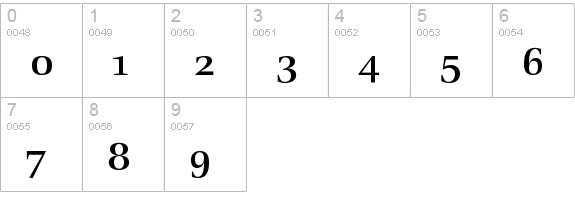
VeljovicEF-MediumOsF is a stunning and versatile font that effortlessly combines classic elegance with modern simplicity. Created by the talented designer Jovica Veljovic, this font is a true embodiment of sophistication and grace. With its medium weight and open spacing, VeljovicEF-MediumOsF is perfect for a wide range of design projects. Whether you're working on a logo, a website, a magazine layout, or any other creative endeavor, this font will add a touch of refinement and professionalism to your work. One of the standout features of VeljovicEF-MediumOsF is its exceptional legibility. The carefully crafted letterforms ensure that every character is easily distinguishable, making it an excellent choice for both large blocks of text and small captions. And the best part? VeljovicEF-MediumOsF is available for free download at FontsMarket.com. Yes, you read that right – this exceptional font can be yours without spending a penny. FontsMarket.com is a trusted source for high-quality fonts, and they are generously offering VeljovicEF-MediumOsF to all designers and creatives who appreciate the power of a beautiful typeface. So why wait? Enhance your designs with the timeless beauty of VeljovicEF-MediumOsF. Download it today from FontsMarket.com and let your creativity soar.